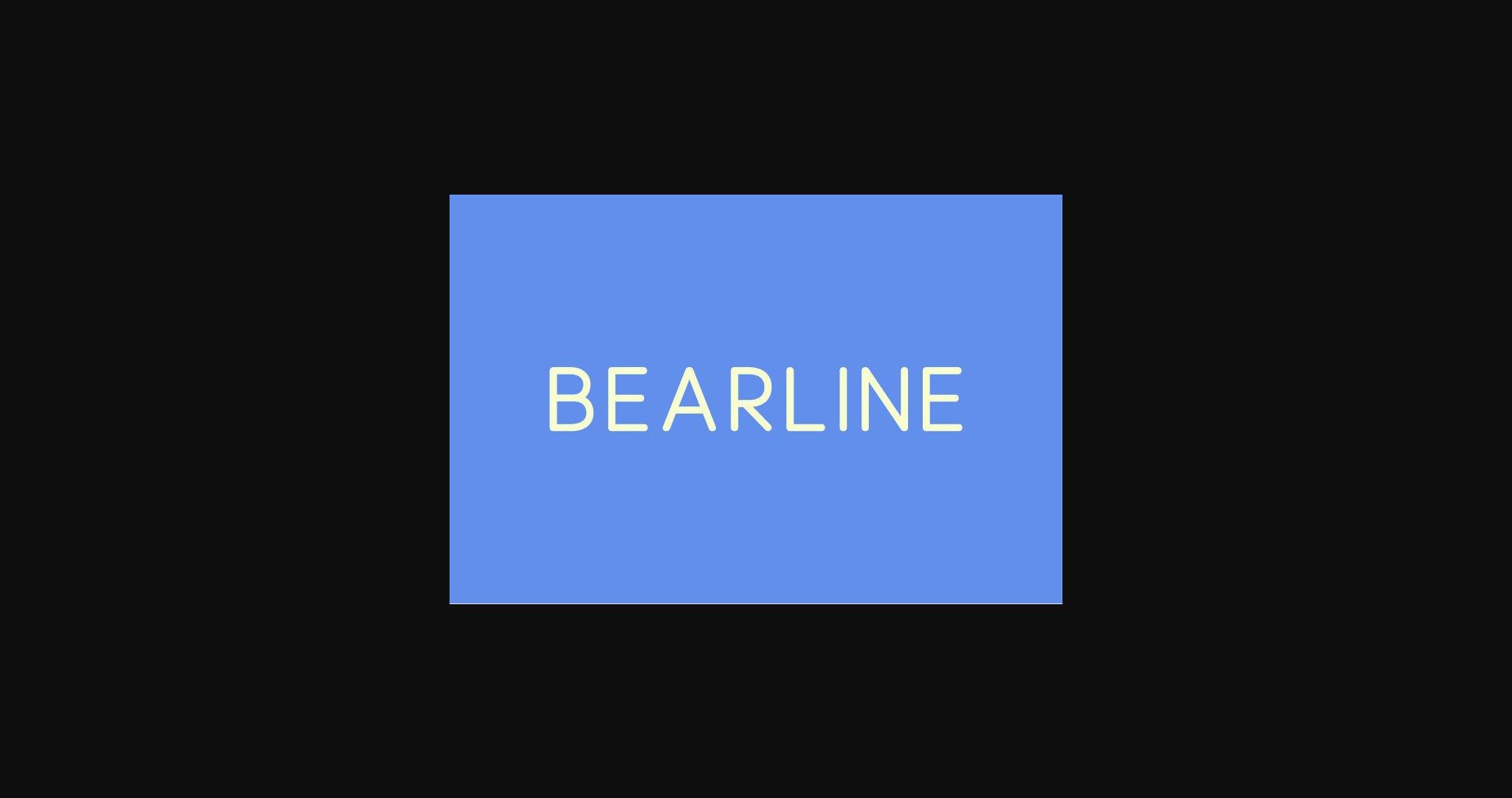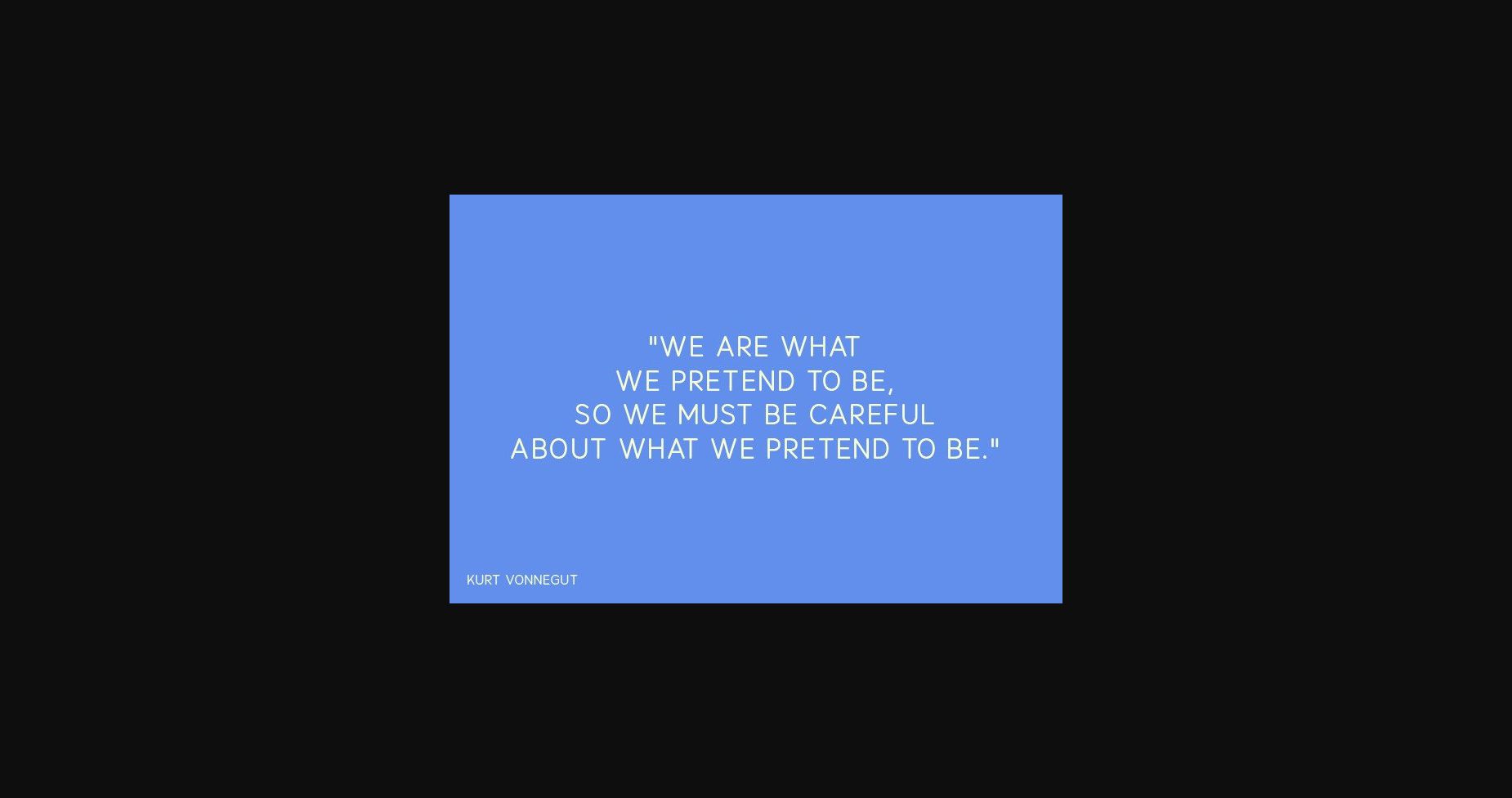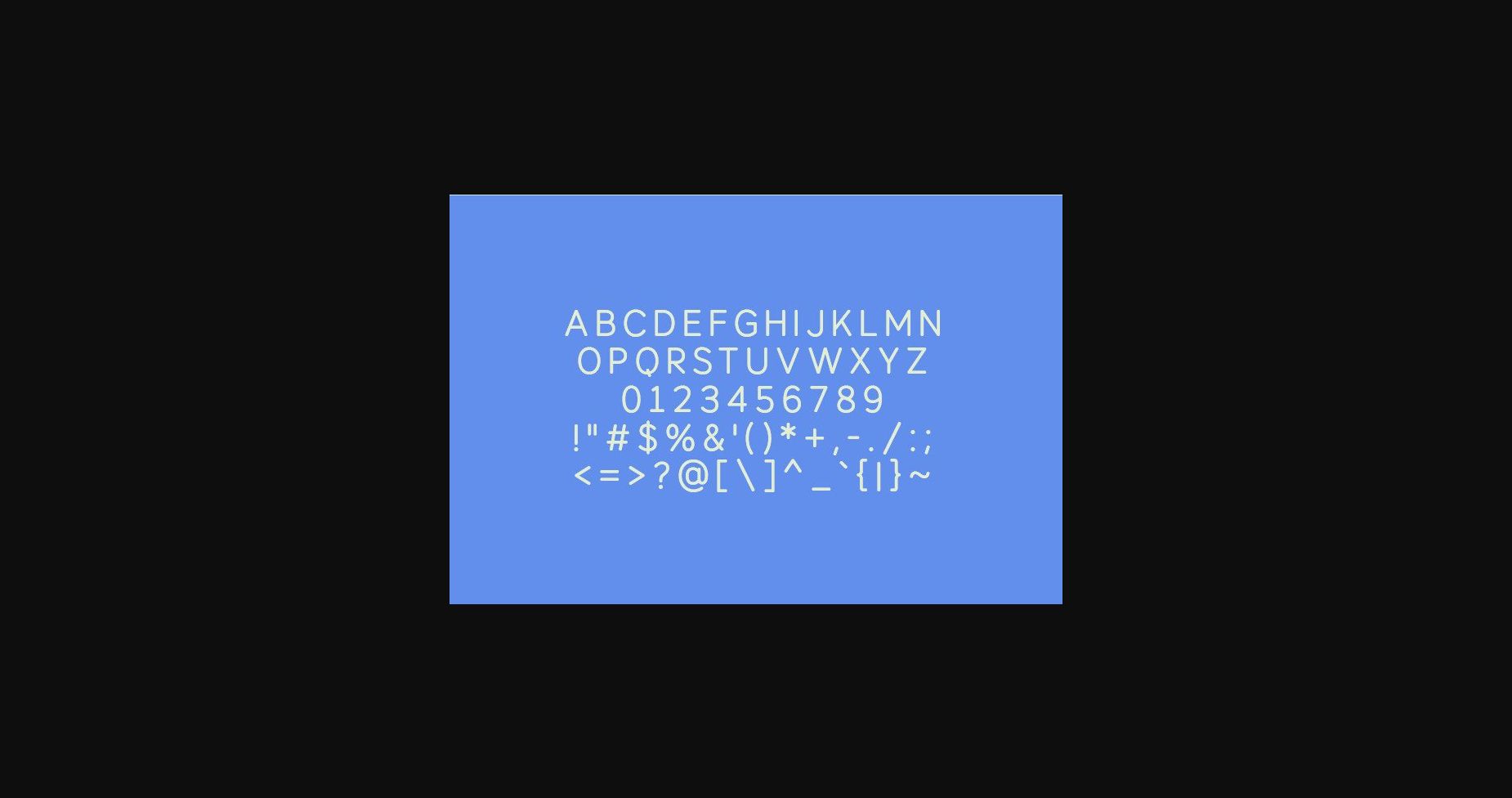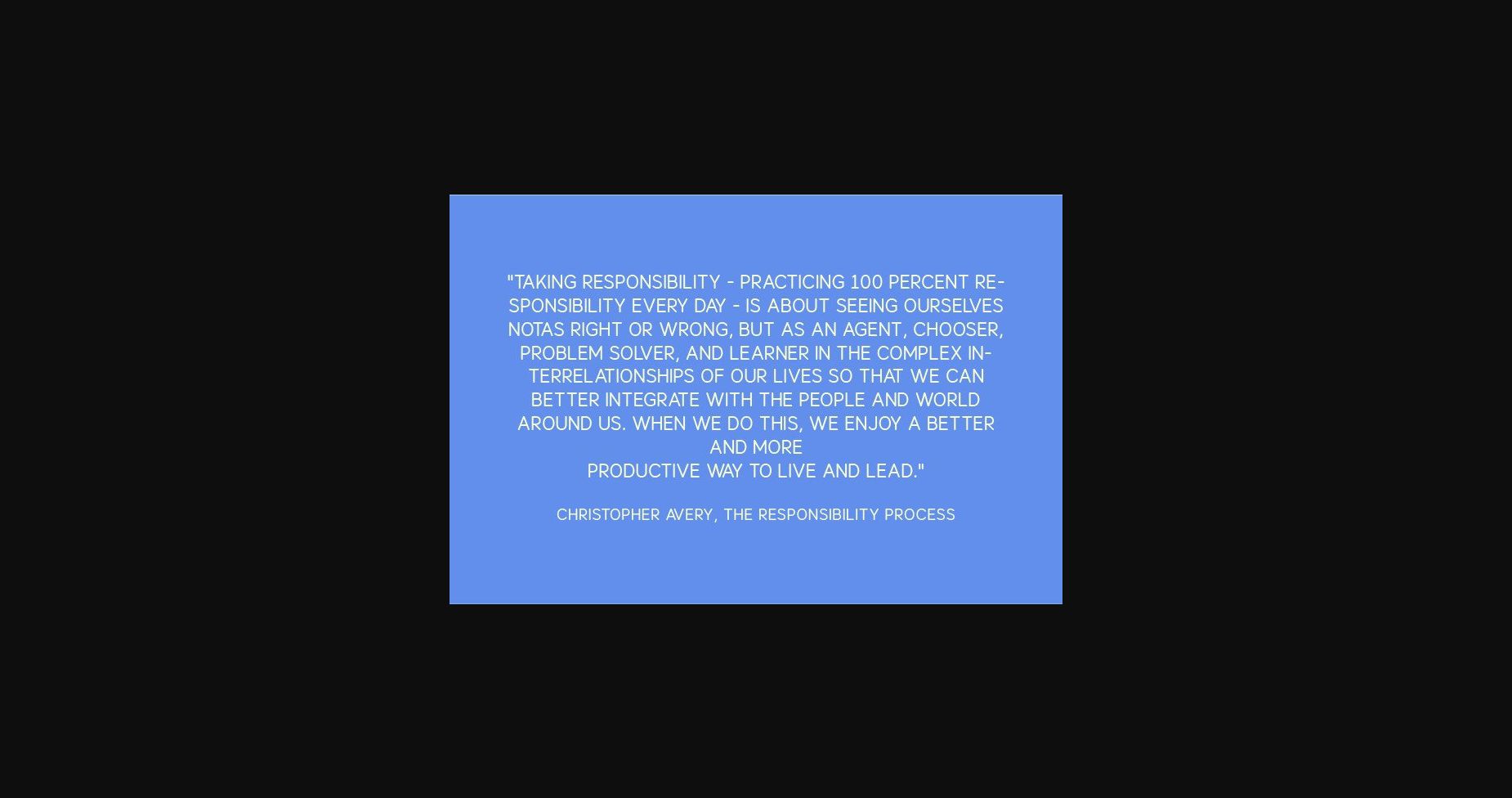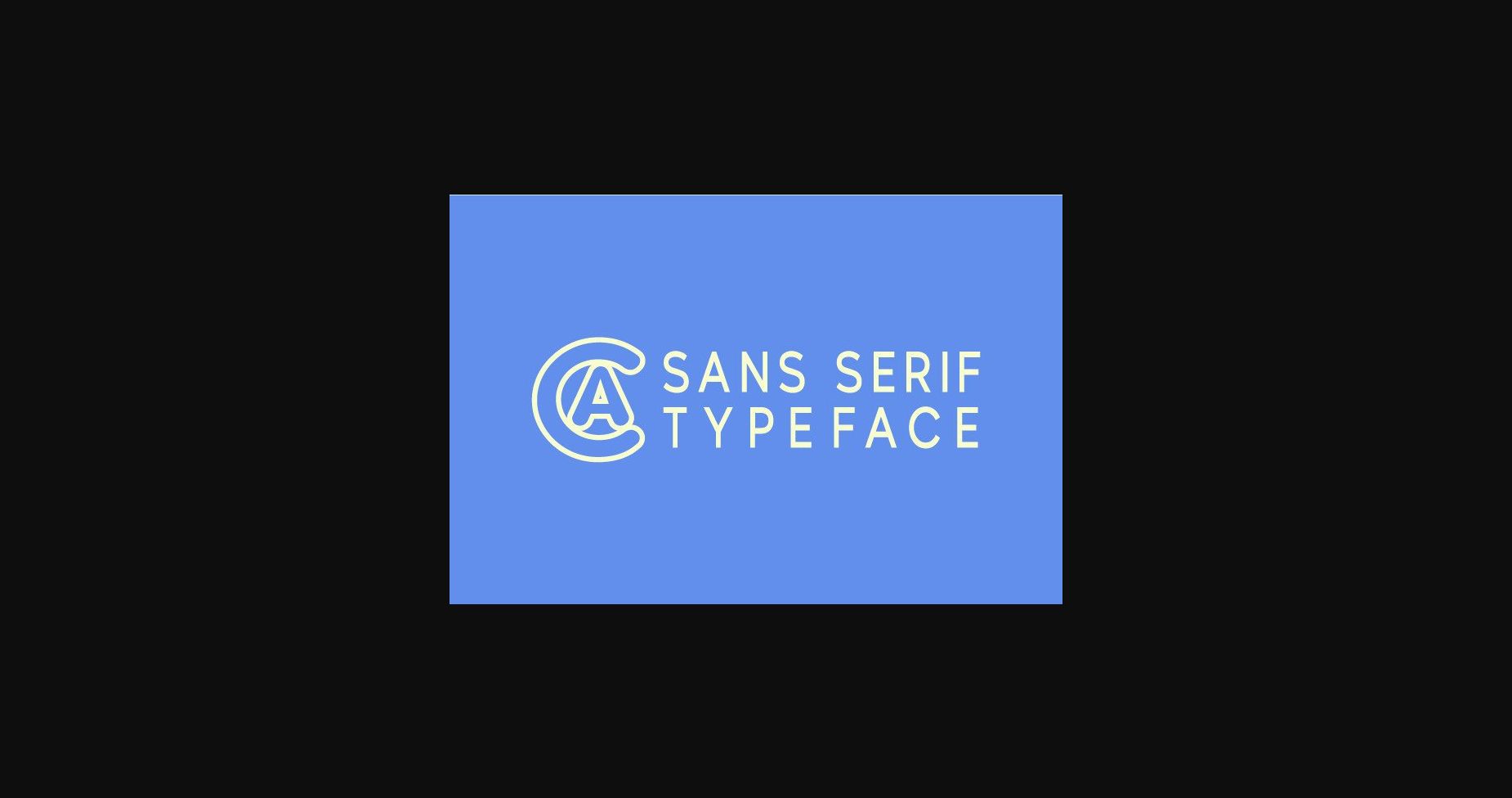
Bearline Font
About Bearline Font
Bearline is a modern, classy sans serif typeface. A sans serif typeface that contains upper characters, numbers 0-9, and a range of punctuation and symbols. An extremely versatile font, perfect for logos, weddings, invitations, quotes, advertisements, print, magazines, and more!